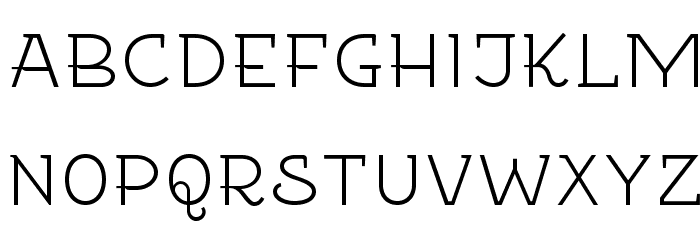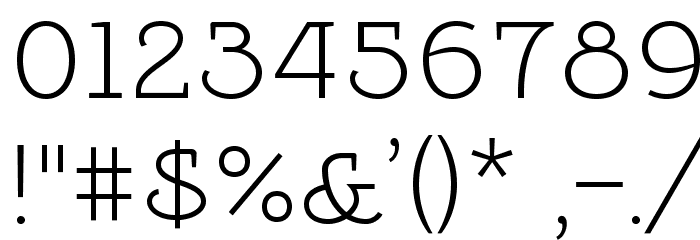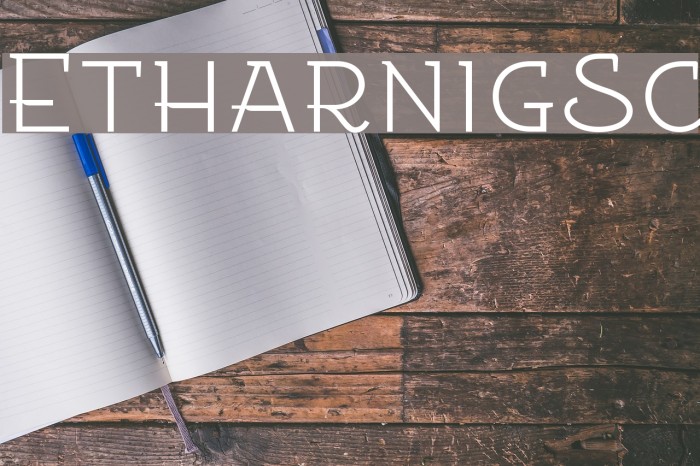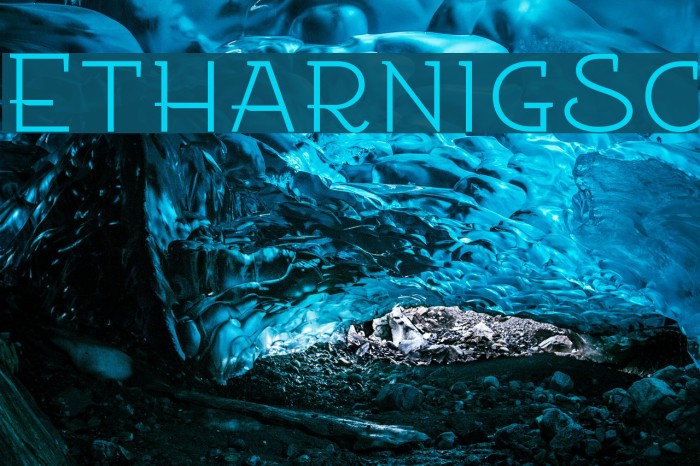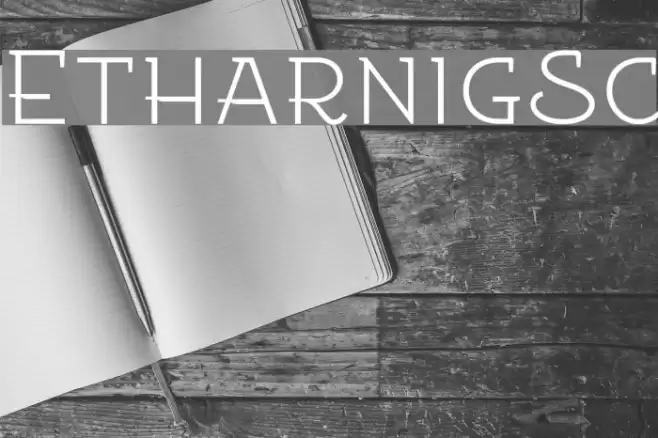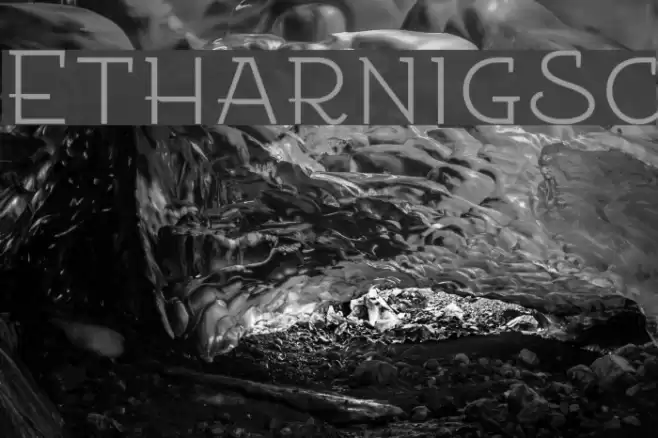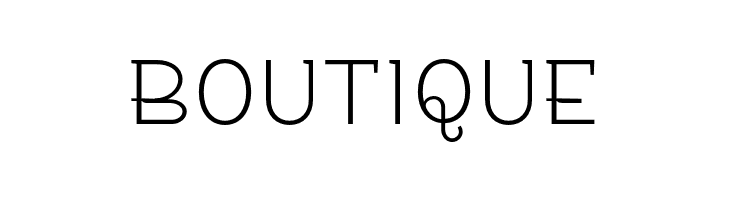
EtharnigSc Font
This font features a unique blend of modern and classic elements, characterized by its elegant serif design. The letters have a distinct curvature, particularly noticeable in characters like 'Q' and 'R', which adds a sophisticated flair. The numerals are clear and well-defined, making them easily readable. Special characters are crafted with precision, maintaining the overall aesthetic of the typeface. The font's balanced proportions and consistent stroke width contribute to its readability, making it suitable for various design applications.
A modern serif font with elegant curves and balanced proportions.
- Proposed Projects: Ideal for branding, editorial design, and invitations, where a touch of elegance is desired.